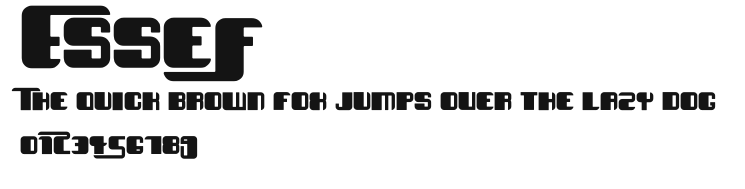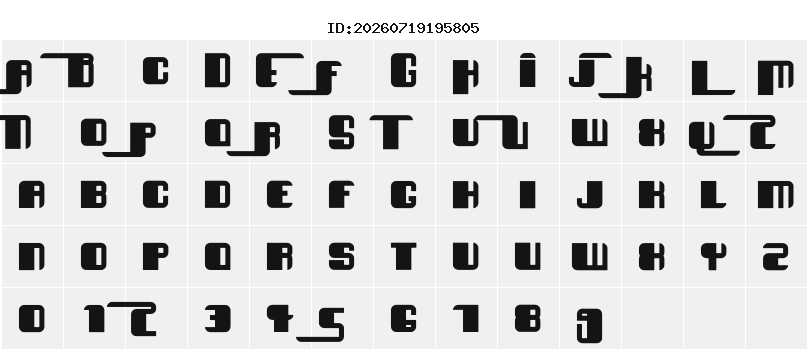
EsseF.ttf is a modern, elegant sans-serif font designed for ultimate readability and visual harmony. Perfect for branding, headlines, web design, and print materials.